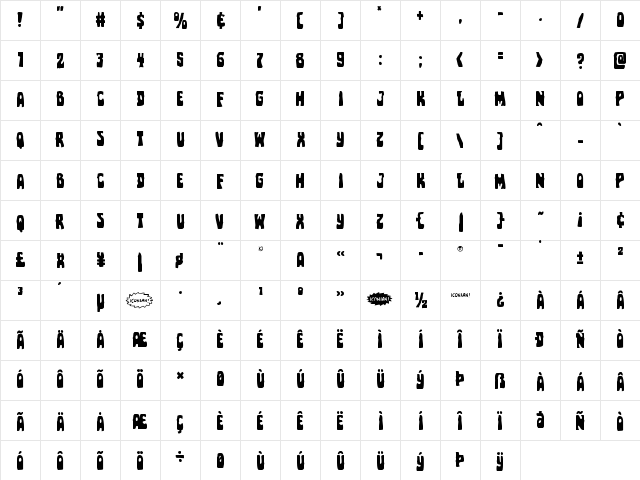
Pocket Monster Staggered Regular
Design Context for Pocket Monster Staggered Typeface
Pocket Monster Staggered is a composed and adaptable typeface that performs quietly and consistently across a wide range of design contexts.
Pro Tip: Use Pocket Monster Staggered in both headline and body roles to test its range before committing to a single application.